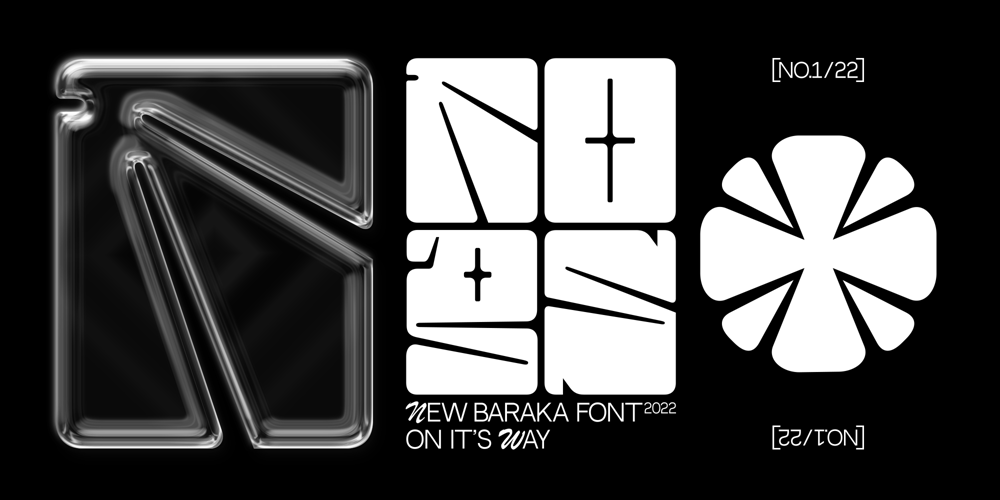
Baraka Font Family was designed by Konrad Łukasiak and published by Typophobia. Baraka contains 1 styles and family package options. Baraka – in Swahili – a blessing.It is a simple, block-like typeface closed in cuboids.It was created and designed in Tanzania, Africa.It contains 183 gliphs, which due to their simplicity, which consisted in cutting out letters from rectangles using as little light as possible, makes an impression and is in fact a very heavy display typeface.It was created primarily for posters and labels, where thanks to its modularity and form enclosed in a limited geometric figure